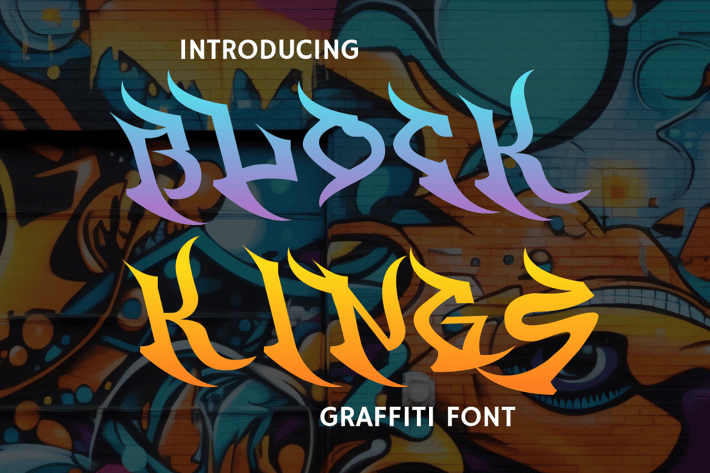
Block Kings - Graffiti Style Font
Introducing Block Kings - Graffiti Style Font, a bold and dynamic typeface that brings the raw energy of urban street art into your designs. The font features sharp, angular edges with a thick outline, resembling authentic graffiti tags sprayed on walls. Its layered style and vibrant blue tones exude creativity and rebellion, capturing the essence of the graffiti subculture. The white glow effect around the text enhances its visibility, creating a striking contrast against the vibrant, mural-inspired background. Whether you're designing for edgy branding, music posters, or streetwear projects, Block Kings adds an unmistakable urban flair to your work.
The backdrop of colorful graffiti art complements the font perfectly, making it suitable for projects that demand a bold and youthful aesthetic. Block Kings is highly versatile and can be used for logos, packaging, event promotions, or even as standout titles for digital media. Let your creativity flow and channel the spirit of the streets with this graffiti-inspired font that delivers attitude and artistry in every stroke.